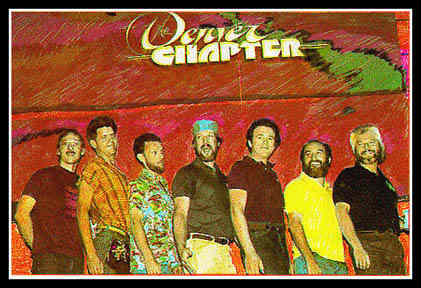
Letterhead History Lesson
Meet the original seven Letterheads! From left to
right......Bob Mitchell, Mark Oatis, Photo courtesy of Signs of the Times Magazine. The Letterheads History...and some more good information! Roughly 25 years ago, a magical moment in sign history, a group of extremely talented Denver craftsmen found each other and began having loosely structured meetings-get togethers more like it. They may have gathered just to have a good time and swap stories but eventually began intensive information and technique swapping. The old sign painting books such as Strong's Book of Designs became a cornerstone of their learning. As their talents and craftsmanship sharpened, they began entering the Signs of the Times annual design competition and generally swept every category. At the bottom of every entry, they wrote "member Letterheads". After the Letterheads were featured in a later Signs of the Times magazine, the rest of the sign industry learned of the Letterheads, with much envy. In 1982, Noel Weber hosted the "Boise Bar-B-Q" in which he invited additional craftspeople from around the country. In October of the same year, Mike Jackson hosted the "Oklahoma Bash" in Moore, Oklahoma and roughly 135 sign makers showed up for an intensive weekend. Both Signs of the Times and SignCraft magazines sent their editors. As the next issues hit the streets, their articles and photos enlightened the entire industry. The movement was in full force with large meetings in Kansas City in 1983 and Memphis the following year. The rest of the growth is history. Literally hundreds of meetings have just "happened". The Denver group hosted the 10Th and most recently 20th anniversary meetings. While there is usually one National meeting a year, there are often four or five regional or area meetings a month scattered all over the country. Amazingly, the Letterheads thrive, grow, and evolve without a true governing body. That's right-no president, treasurer, or even board of directors. The basic rule of thumb has been "if you want or have a Letterheads meeting-have one". That person or group decides the format, location, fees charged if any and all other variables. At the center of the all the hoopla is the willingness to learn, share, and explore. Prior to the Letterheads, many craftsmen closely guarded their hard earned knowledge. Once, caught up in the movement, it becomes difficult not to want to share your knowledge, especially when even more experienced people are sharing theirs. While the earliest meetings in Denver emphasized the noble craft of sign painting, gilding, and designing, later meetings have acknowledged and accepted the introduction of the computer age. Even today, the blending of the old craft and state of the art technologies collect a crowd. Often, meetings have a theme, and attendees are encouraged to make a project showing off some of the person's talents or techniques. If you ever attend a meeting, be prepared. Sleep a lot before you go because you won't want to when you get there. Some meetings have had all night episodes. Take your camera and plenty of film, flash, polarizing filter, and maybe some more film. Bring a portfolio and a notebook. Walking in the door, be prepared to feel intimidated-but that will soon pass as you get caught in the excitement. Ask the host if you can help out and they will certainly let you! Your first Letterheads meeting will probably change your life. Mike Jackson, Jackson Hole, WY [ Past Meets | Join Us! | Bulletin Board | Upcoming Meets | Find A Letterhead | Find A Supplier ] Copyright © 1994-2007 The Letterhead Website |